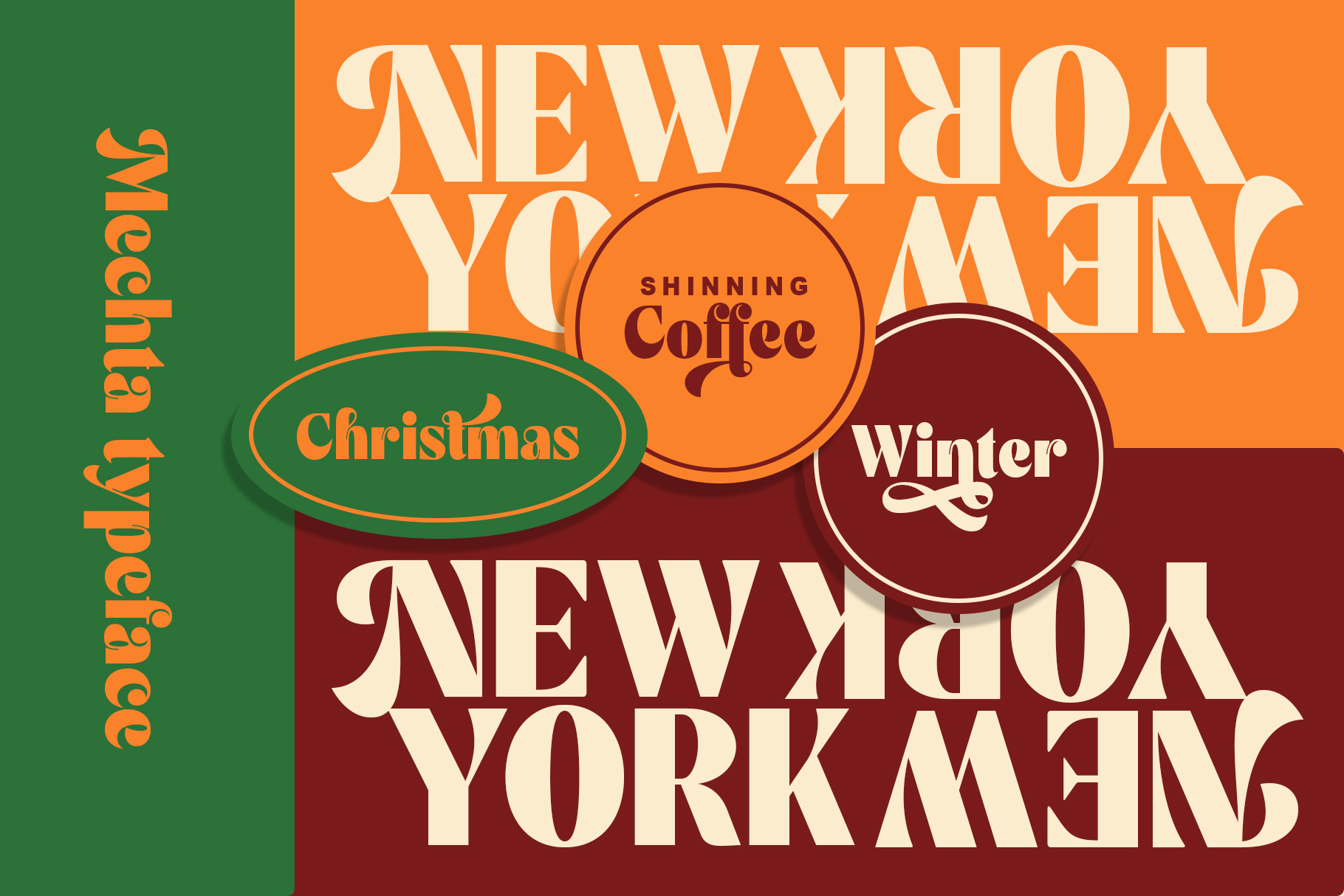
Mechta - Display font
Hello, this time we want to introduce a new product. namely "Mechta", a display font that has a classic, feminine and elegant style.